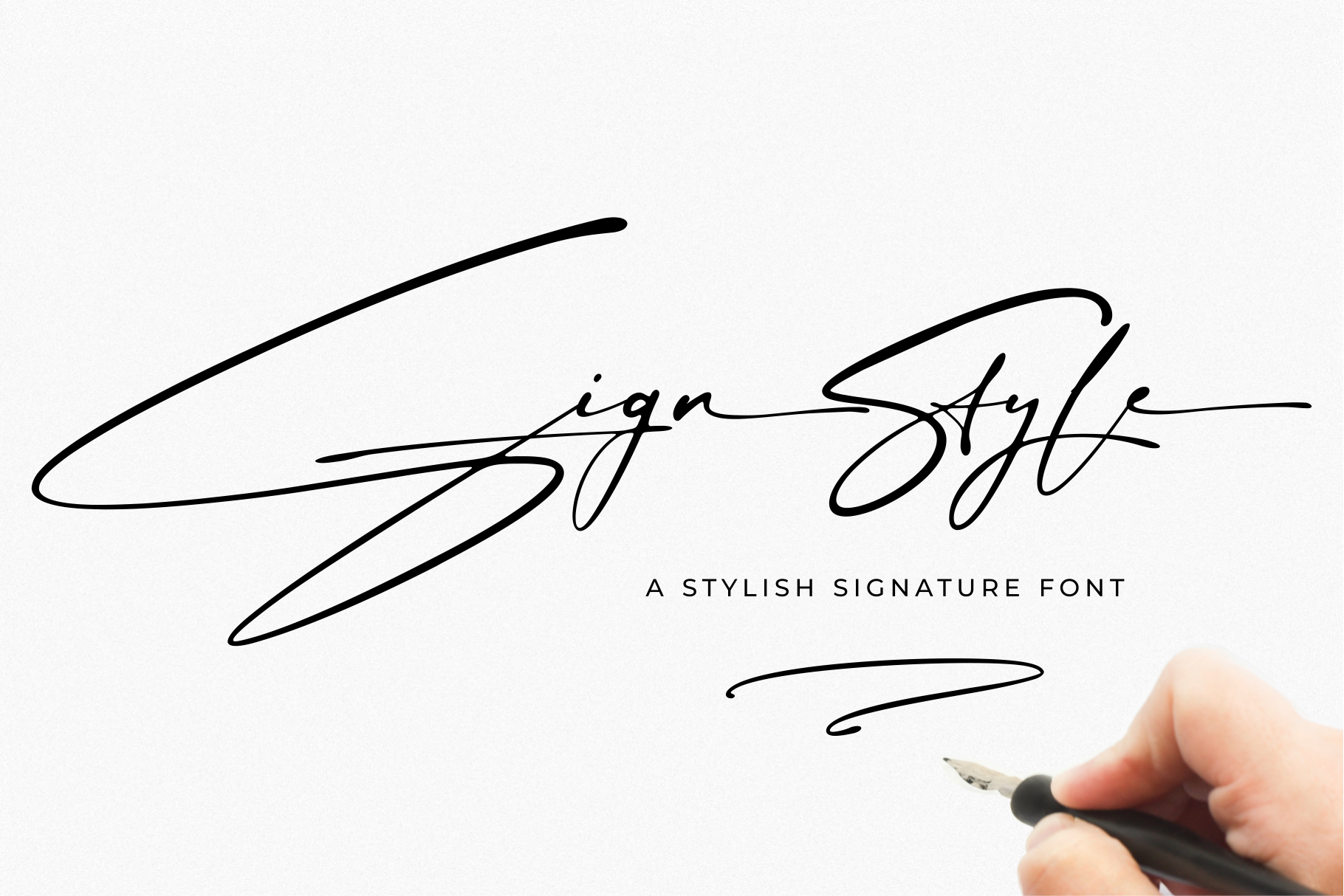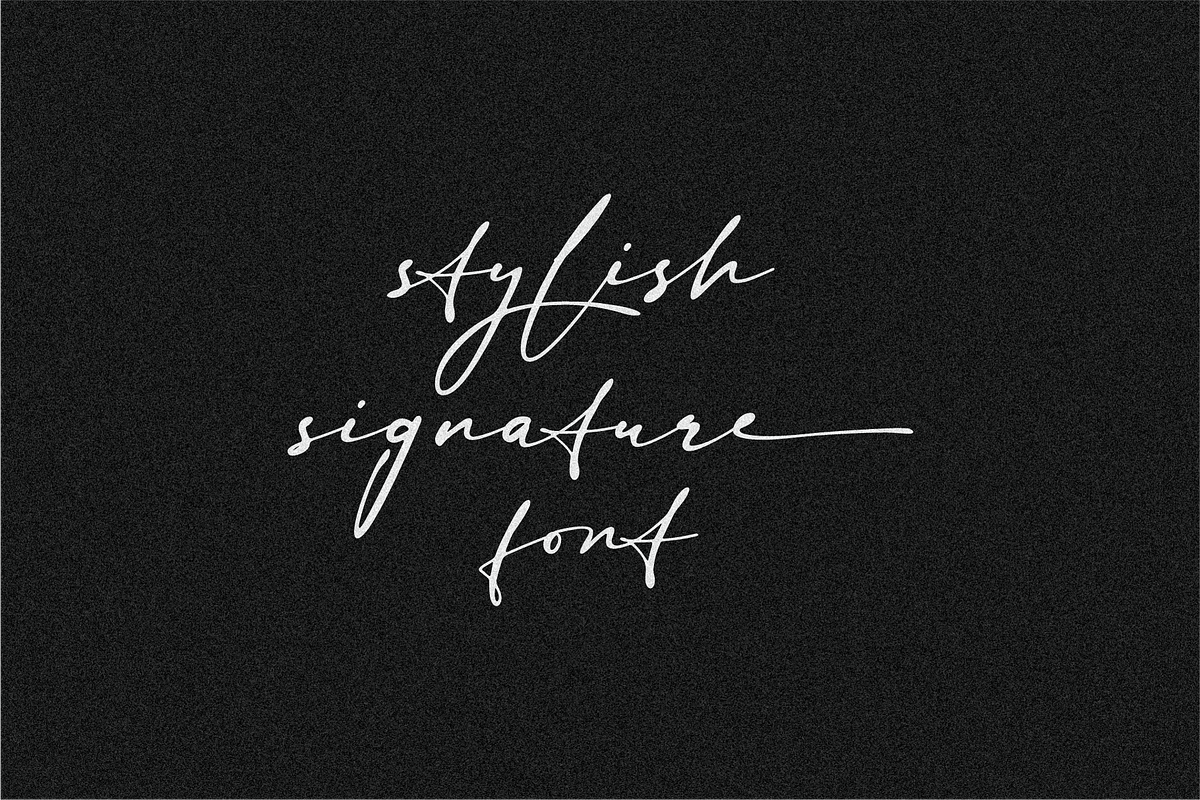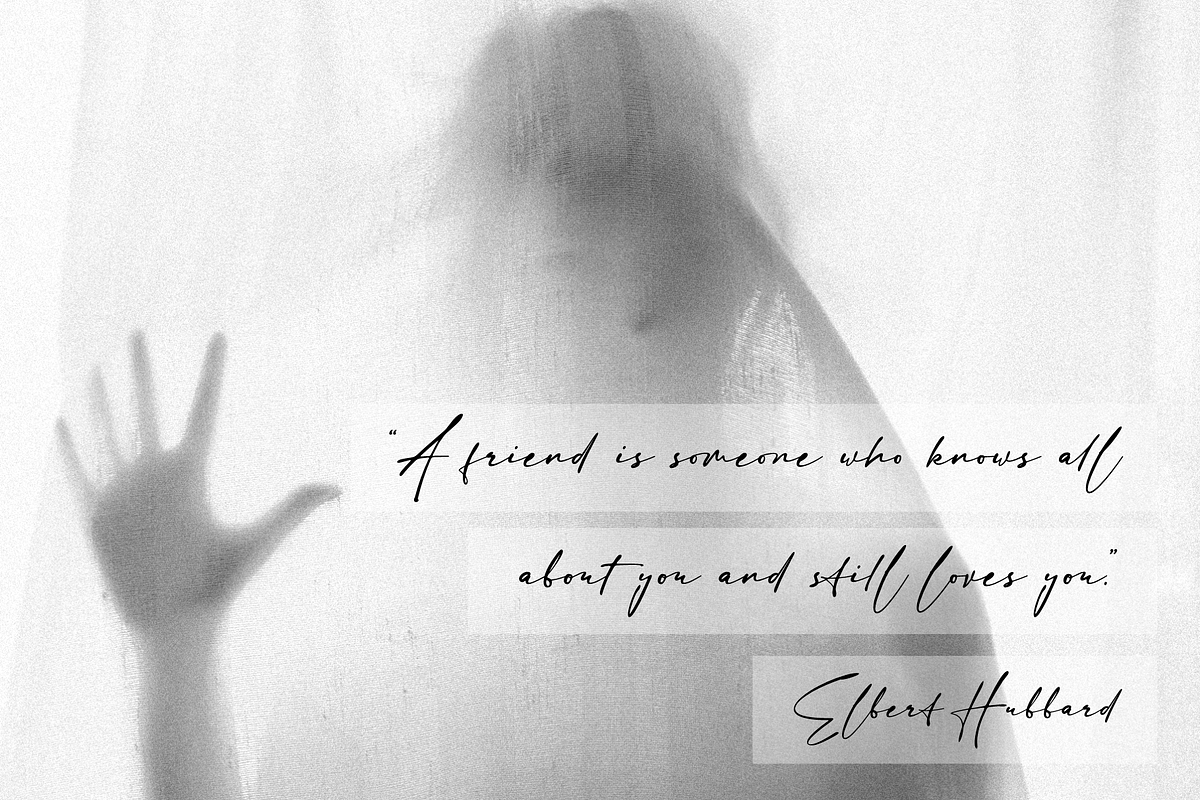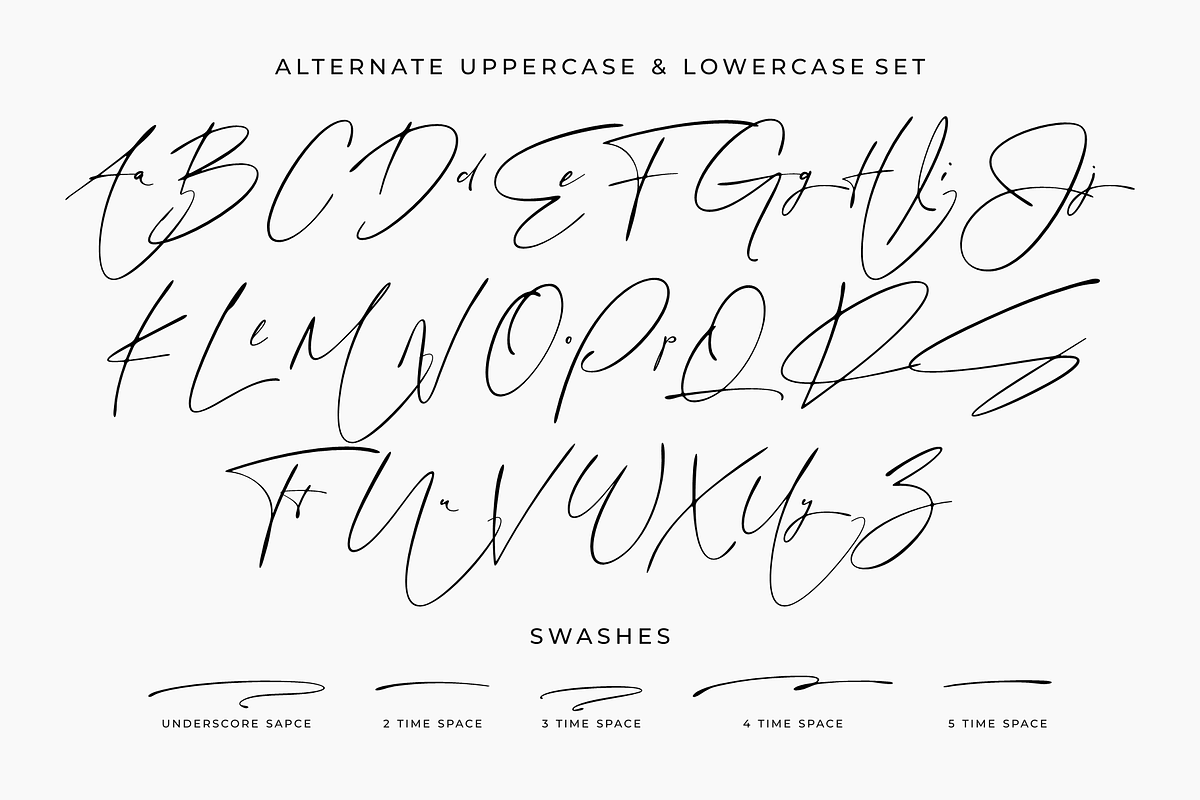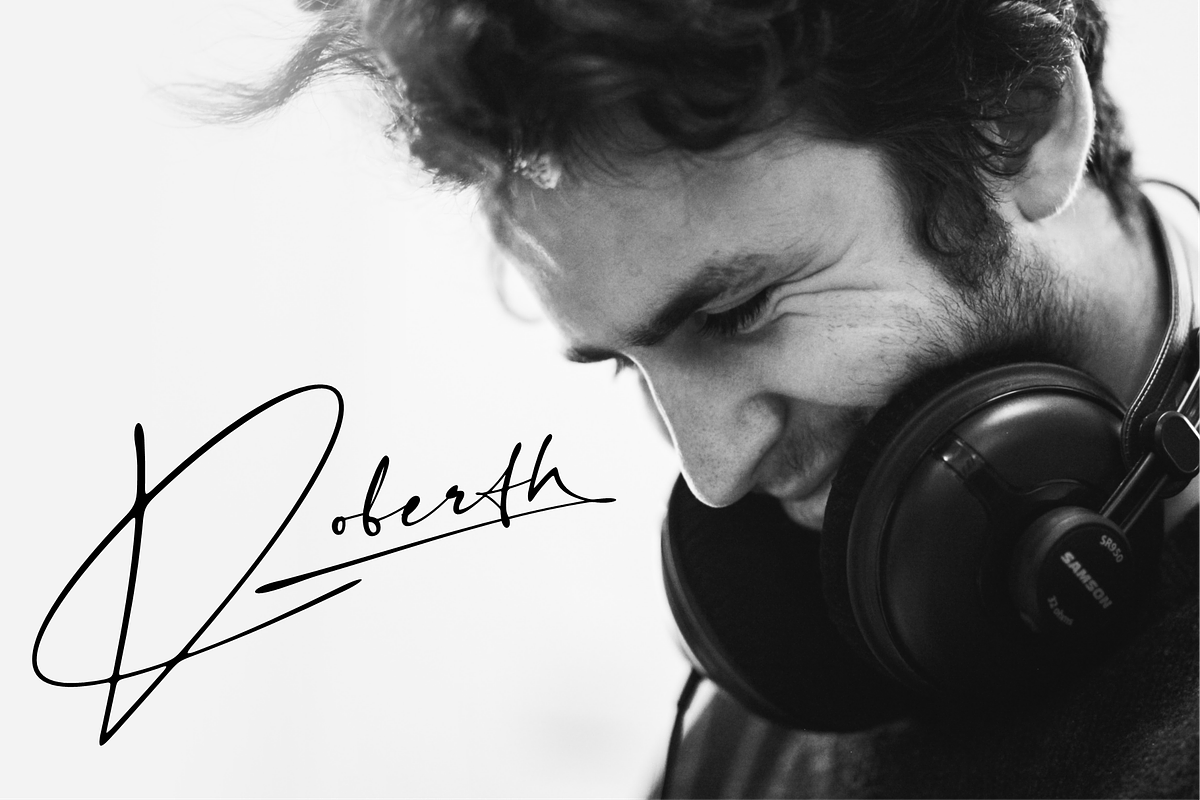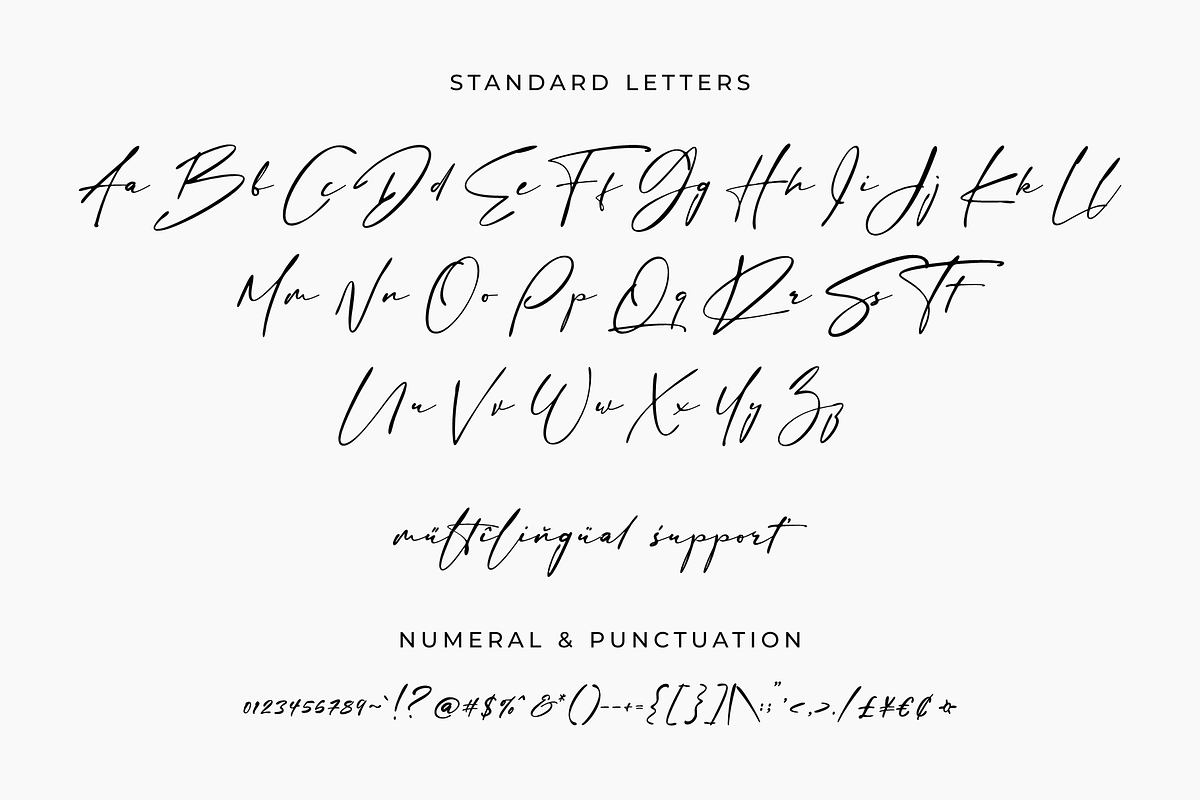
Sign Style – Elegant Signature Font
Bring your business to life with Sign Style – an elegant signature font, created by a passionate designer. The font combines a personal, hand-drawn feel with modern design, making it perfect for signature logos, branding, packaging, and advertising. Sign Style font has been designed in such a way that capital initials can be easily used at the beginning of a sentence to add a natural signature feel. This is a unique font that can make your signature brand stand out from the crowd while keeping it personal and friendly.
Sign Style features:
- A full set of upper & lowercase characters
- 35 Gorgeous ligatures
- A full set of alternate uppercase characters
- Lowercase ending swashes
- Lowercase alternates characters
- Multilingual symbols